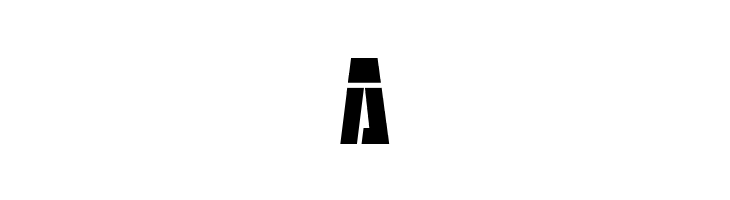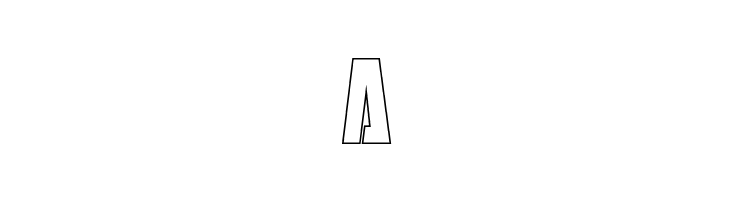
Animals 2 Font
Font by Alan Carr
Animal silhouette icons form each character in a bold, decorative style.
FREE Altoys just personal only Italic Font Preview
Altoys just personal only Italic Font
Alit Design - Alit Suarnegara - www.alitdesign.net
A modern, flowing cursive font with an elegant italic style.
Dingo Font
Font by Matthew Austin Petty - www.disturbed.com
A playful, hand-drawn font with bold, uneven strokes and a whimsical style.
OPTIKorinnaExtraBoldAgency Font
A bold, serif font with strong strokes and a classic yet modern appeal.
Cherry and Kisses Personal Use Font
A bold, cursive font with a playful and elegant style.
Aralgish Normal Font
A bold, decorative font with intricate, artistic details and a medieval flair.
Lemon One Regular Font
A playful, bold font with rounded edges and a slightly italicized style.
Naive Font
Dominique Idiart - dominiqueidiart.myportfolio.com
A playful, irregular handwritten font with quirky angles and uneven strokes.
LaudatioC Font
A modern serif font with elegant curves and clear readability.
Funny & Cute Font
A bold, playful font with chunky, irregular shapes and lively energy.
Mada SemiBold Font
A modern, semi-bold sans-serif font with clean lines and balanced proportions.
Crimson Italic Font
Elegant serif font with a classic italic slant and moderate contrast.
Honey Barry Font
Font by Pinisiart
A bold, playful font with rounded edges and a bubbly appearance.
Hydra Font
A bold, angular serif font with a dramatic and dynamic style.
Broderbund Old Bold Font
A bold, geometric font with a modern and structured design.
Fungus Bold Font
Font by James Greenwood
A bold, decorative font with thick strokes and playful, quirky design elements.
Opificio Regular Font
A modern, geometric sans-serif font with a clean and minimalistic style.
A Damn Mess Font